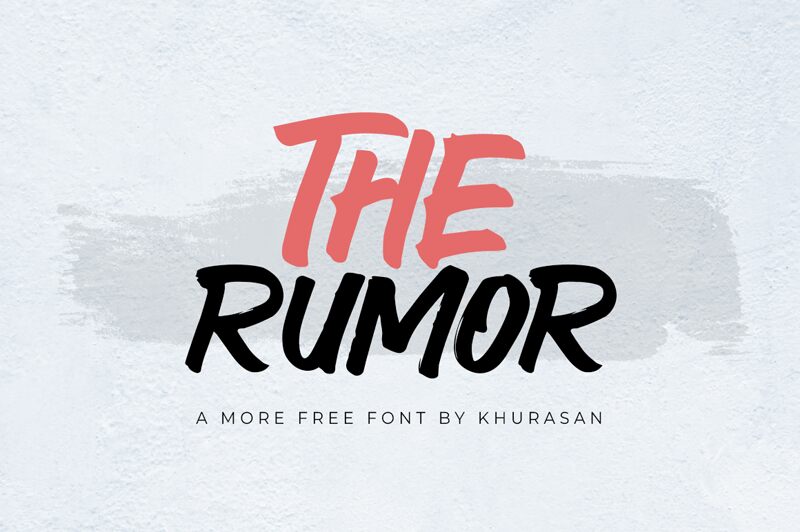
The Rumor, a handwritten marker font by Khurasan, is perfect for any project that requires a unique and stylish look. From logos to posters to signs, The Rumor will make your design stand out. Its bold strokes and creative flair will bring an exciting vibe to any project!
The Rumor